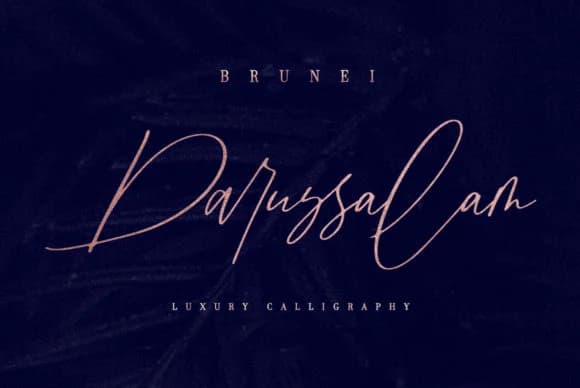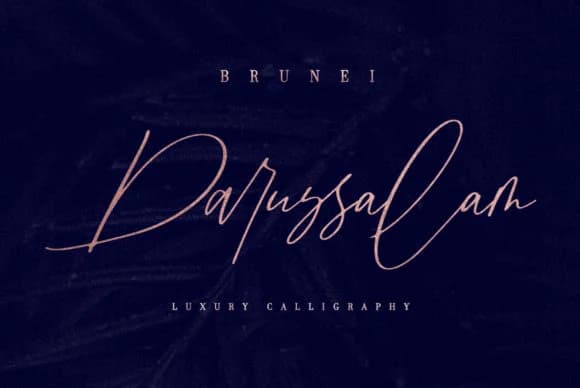
Brunei Darussalam Font by Discipline is a handwritten script that brings authentic character and personal warmth to design work that demands genuine appeal. The fluid letterforms capture the essence of carefully penned correspondence, with curves and strokes that feel genuinely organic rather than mechanically generated. This makes it equally suitable for contemporary minimalist designs and vintage-inspired creative projects.
The font excels in applications where personality and distinctive character form the foundation of visual identity. Wedding invitation suites benefit from its elegant flow, while artisanal product packaging gains authenticity through its natural rhythm. The script works beautifully for Etsy shop branding and custom product label design, where handcrafted aesthetics drive customer connection. Personalized stationery, luxury event programs, and hand-lettered business cards all leverage the letterforms' inherent sophistication and readable baseline. The confident stroke weight ensures the font performs well across different sizes and applications without losing impact or legibility.
Beyond these applications, Brunei Darussalam Font transitions seamlessly between headline and display uses in various creative projects. The carefully balanced letterforms provide distinctive visual interest while maintaining professional polish. Get the font from Creative Fabrica and unlock the potential of this handwritten script for your next design project.
Brunei Darussalam Font is a script font that shines as a display or heading face. Pair it with a clean sans-serif or serif font for body text β the contrast creates a clear hierarchy while the two styles stay balanced and easy to read.